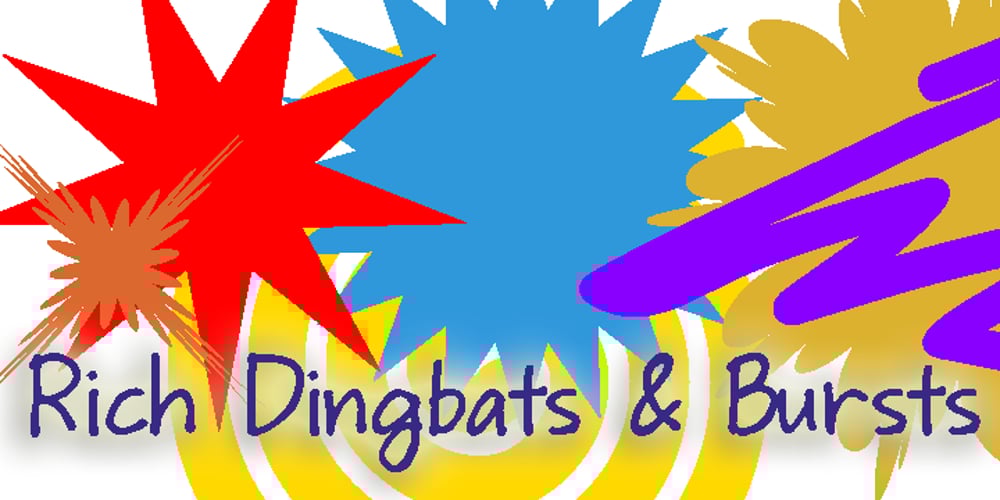
Rich Dingbats & Bursts Font Family was designed by Richard Hubbard and published by Enrich Design. Rich Dingbats & Bursts contains 1 styles and family package options. Rich Dingbats & Bursts was created with graphic designers in mind. I worked for a weekly newspaper, and finding different bursts was a challenge. You either had to draw your own (and who has time for that under tight deadlines) or use the same dull bursts over and over. I wanted to give the people I worked with at the newspaper choices, and Rich Dingbats & Bursts was born. There are several uses for this font. It’s great for adding graphic elements to your Photoshop artwork. In FreeHand, users can convert the burst and paste a photo inside the burst for an interesting effect. QuarkXPress users don’t have to import or draw bursts, just type the appropriate character!